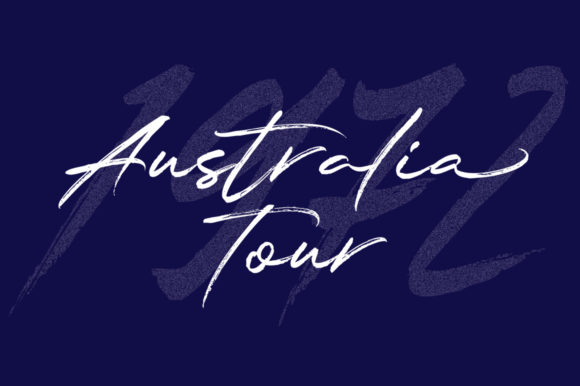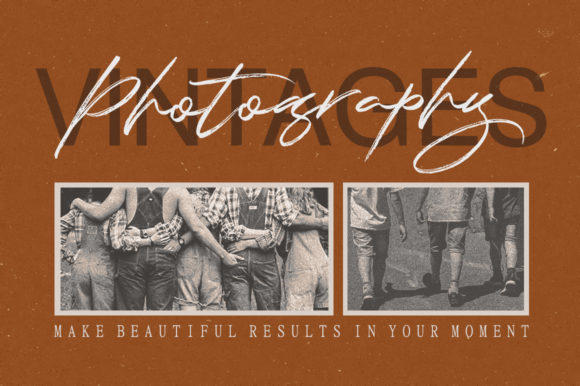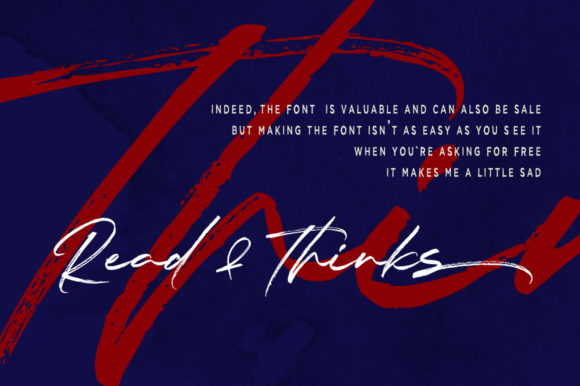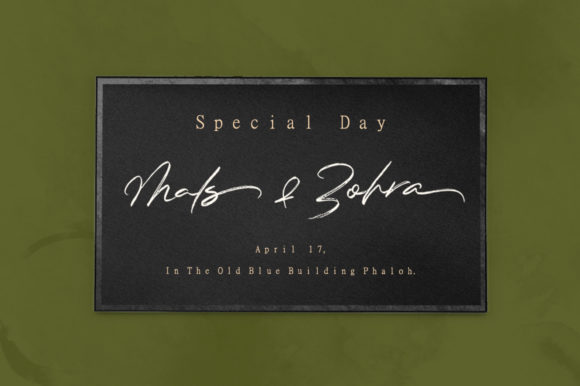
Introducing the Fragile Script Font: A Handmade Textured Brush Font
Are you looking for a unique and creative way to add a personal touch to your designs? Look no further than the Fragile Script Font, a beautiful handmade textured brush font that is perfect for a variety of design projects. In this article, we’ll take a closer look at the features and benefits of the Fragile Script Font, and explore how it can be used to elevate your designs.
What is the Fragile Script Font?
The Fragile Script Font is a textured brush font that was carefully handmade with an irregular baseline, giving it a unique and organic feel. This font is equipped with many alternatives and ligatures, allowing you to add a natural and personal touch to your designs. With its distressed texture and fluid strokes, the Fragile Script Font is perfect for creating designs that look like they were handmade with love and care.
Key Features of the Fragile Script Font
- Handmade with an irregular baseline: Giving the font a unique and organic feel that sets it apart from other fonts.
- Textured brush font: Adding a natural and distressed texture to your designs.
- Many alternatives and ligatures: Allowing you to add variety and personality to your designs.
- Perfect for a variety of design projects: Including stationery designs, quotes, branding, logos, greeting cards, t-shirts, packaging designs, posters, and more.
Uses for the Fragile Script Font
The Fragile Script Font is a versatile font that can be used for a wide range of design projects. Here are some ideas to get you started:
- Stationery designs: Add a personal touch to your stationery with the Fragile Script Font. Use it to create custom letterheads, envelopes, and greeting cards.
- Quotes and posters: Use the Fragile Script Font to create inspiring quotes and posters that add a touch of elegance and sophistication.
- Branding and logos: Create a unique and memorable brand identity with the Fragile Script Font. Use it to create custom logos, business cards, and packaging designs.
- T-shirts and apparel: Add a personal touch to your t-shirts and apparel with the Fragile Script Font. Use it to create custom designs that are sure to stand out.
Benefits of Using the Fragile Script Font
There are many benefits to using the Fragile Script Font in your designs. Here are a few:
- Adds a personal touch: The Fragile Script Font adds a personal and human touch to your designs, making them more relatable and engaging.
- Unique and creative: The Fragile Script Font is a unique and creative font that will help your designs stand out from the crowd.
- Versatile: The Fragile Script Font can be used for a wide range of design projects, making it a great addition to any designer’s toolkit.
Tips for Using the Fragile Script Font
Here are a few tips for using the Fragile Script Font in your designs:
- Use it sparingly: The Fragile Script Font is a bold font, so use it sparingly to add emphasis and personality to your designs.
- Experiment with different colors: The Fragile Script Font looks great in a variety of colors, so experiment with different colors to find the one that works best for your design.
- Pair it with other fonts: The Fragile Script Font pairs well with other fonts, so try pairing it with a clean sans-serif font to create a striking contrast.
| Font Name | Fragile Script Font |
| Author | Dhan Studio |
The Fragile Script Font is a beautiful handmade textured brush font that is perfect for designers and crafters who want to add a personal touch to their designs. With its unique and organic feel, distressed texture, and fluid strokes, this font is sure to elevate your designs and help you stand out from the crowd. Whether you’re creating stationery designs, quotes, branding, logos, greeting cards, t-shirts, packaging designs, posters, or more, the Fragile Script Font is a great choice.